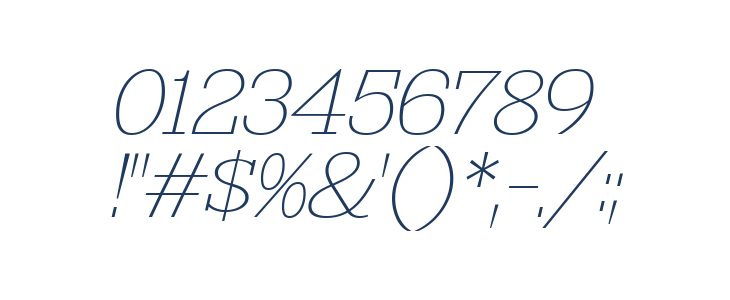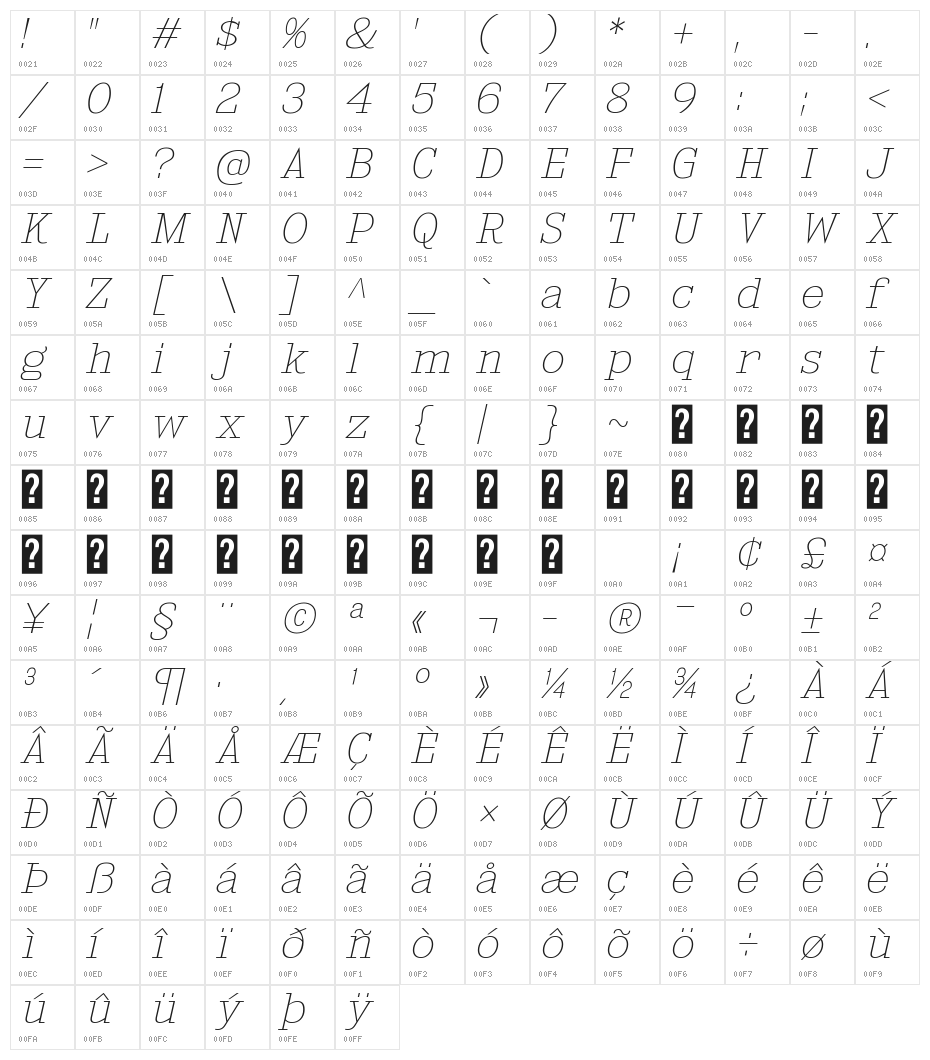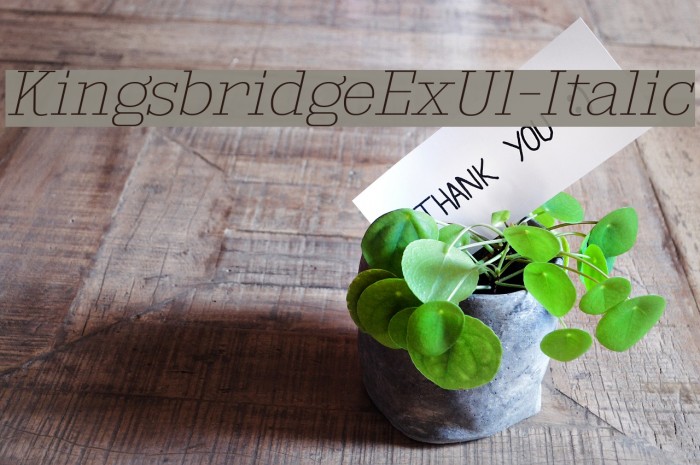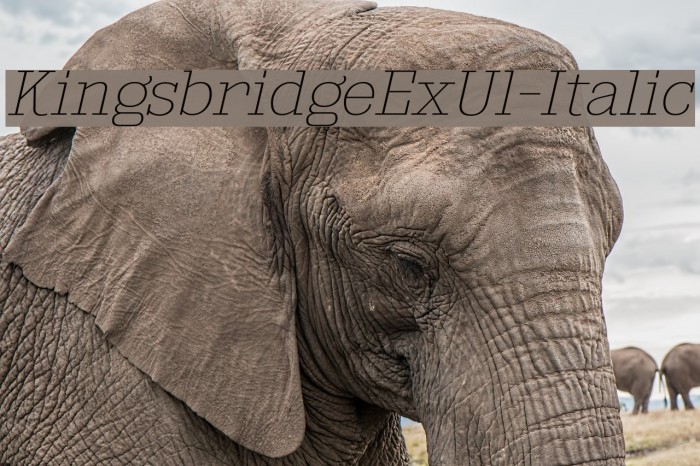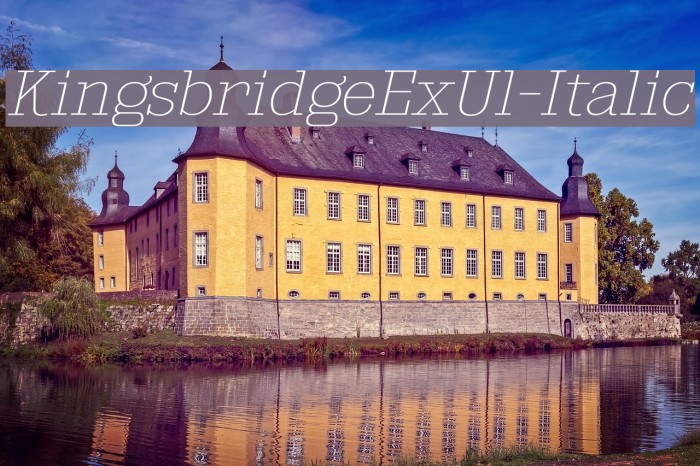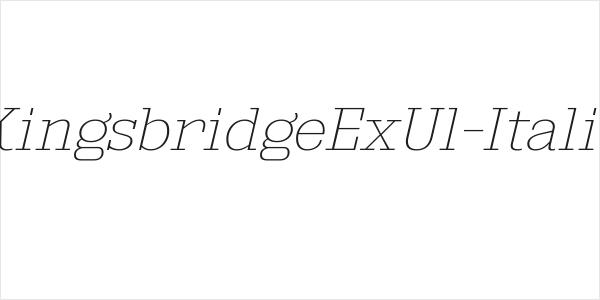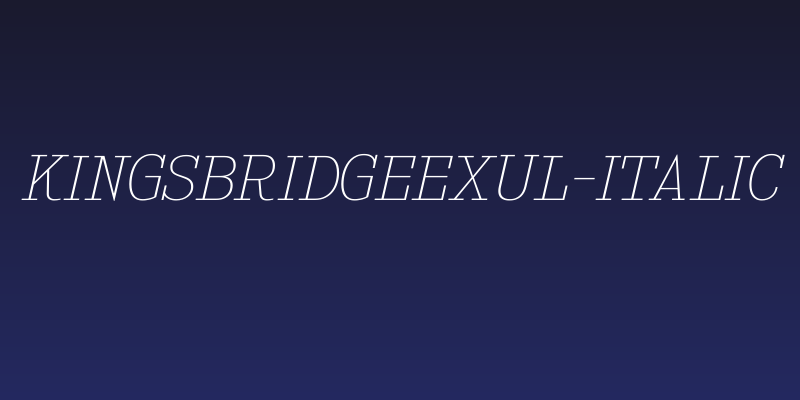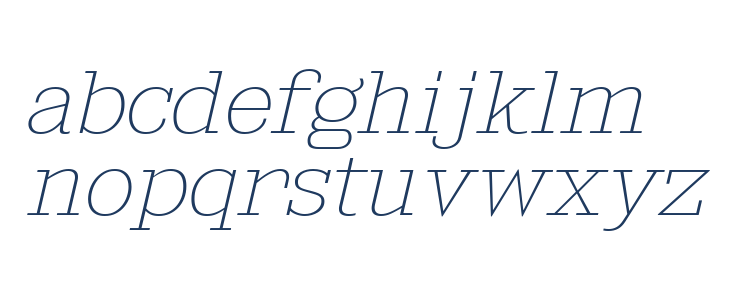
KingsbridgeExUl-Italic Font
KingsbridgeExUl-Italic Description
This elegant typeface features a refined and sophisticated design with a distinct italic slant. The characters are crafted with precision, showcasing thin, graceful strokes that exude a sense of modernity and style. The uppercase letters are tall and slender, while the lowercase letters maintain a harmonious balance, contributing to a cohesive and fluid appearance. The numerals are consistent with the overall aesthetic, providing clarity and readability. Special characters are thoughtfully integrated, enhancing the font's versatility. The font's delicate structure makes it suitable for projects that require a touch of elegance and class.
| Proposed Projects | Ideal for fashion magazines, luxury branding, wedding invitations, and elegant editorial design. |